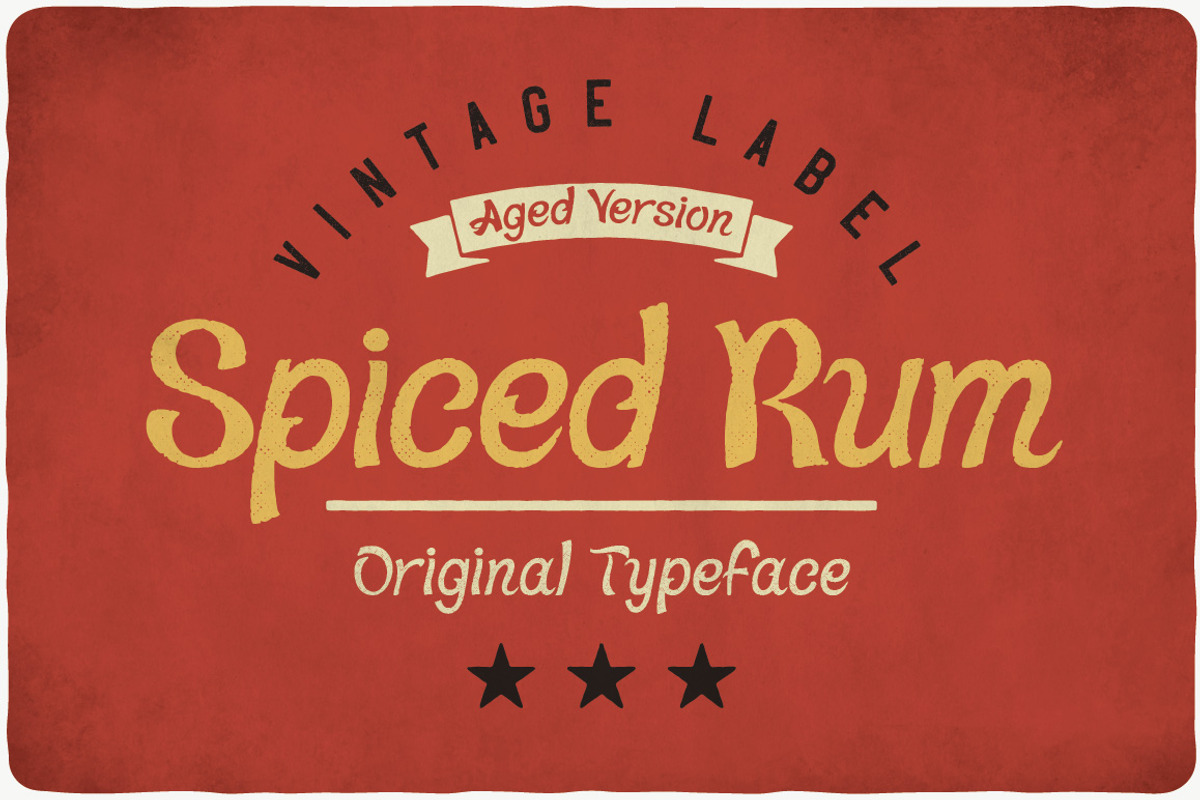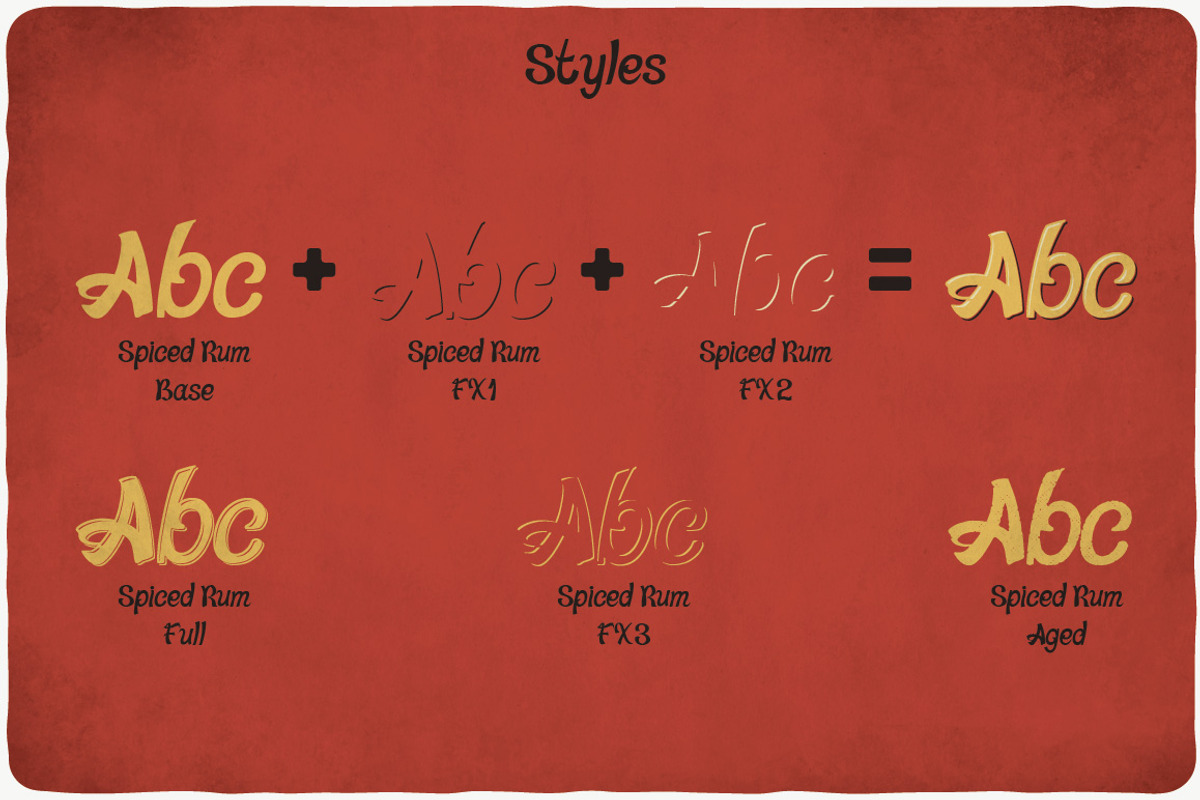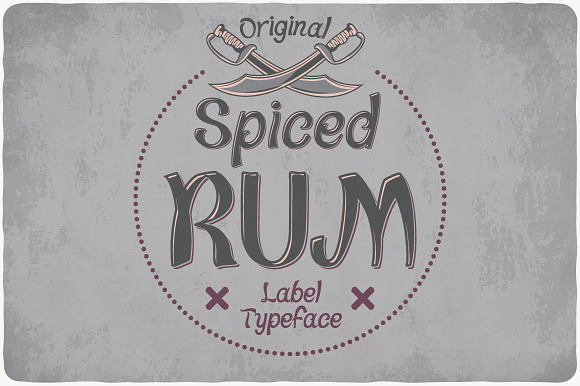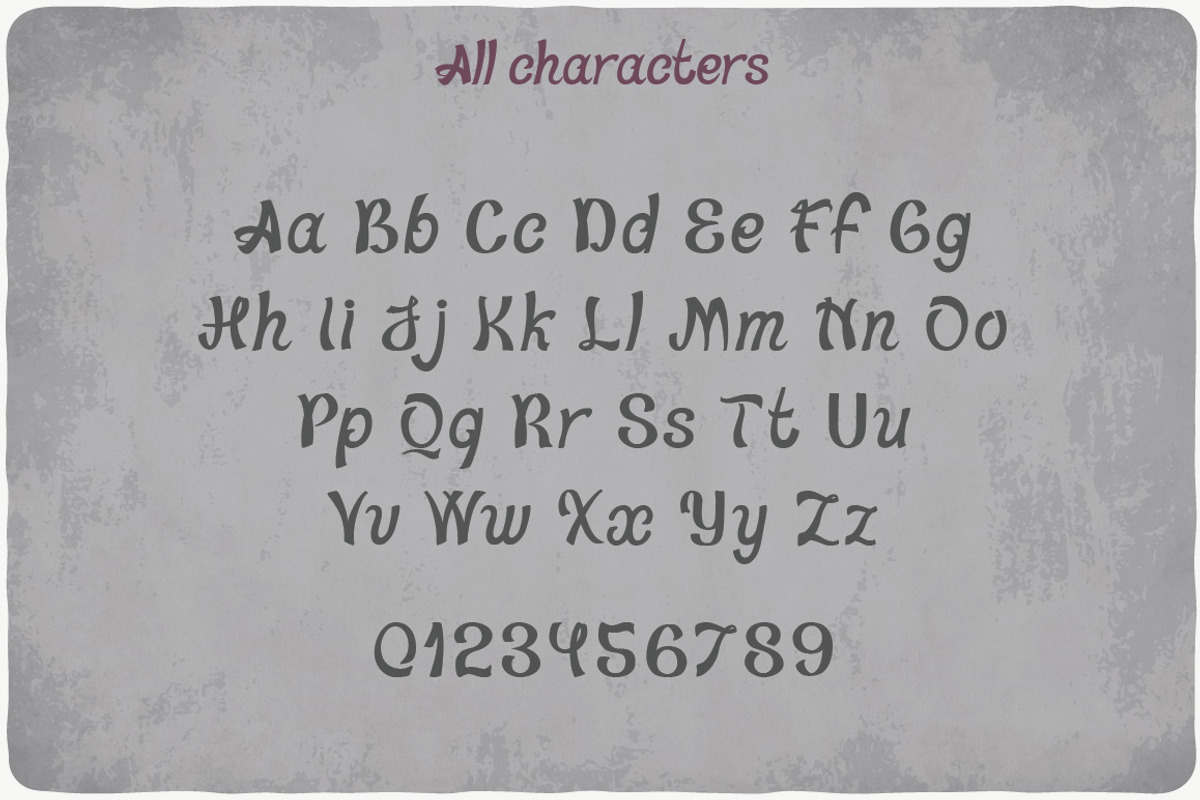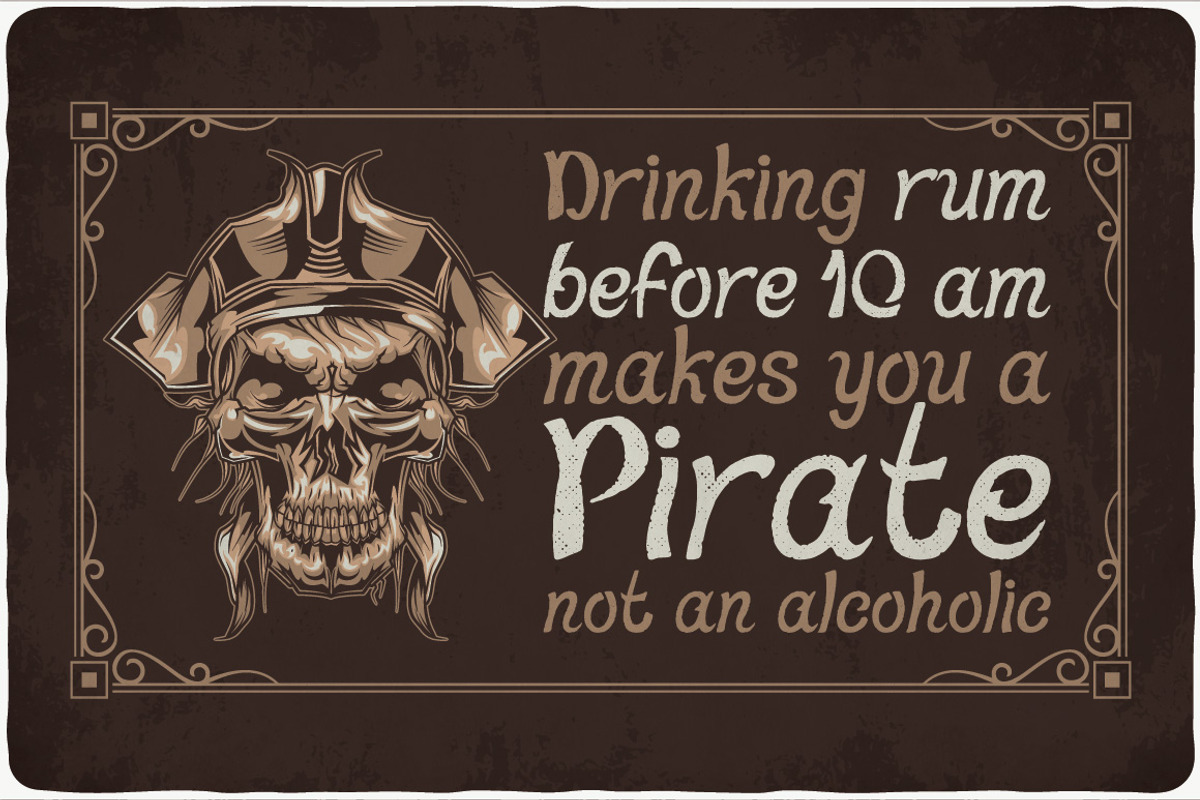
Spiced Rum Typeface
Hello! Presenting a handwritten style label font. It also includes a bonus graphics — motorcycle badge and bar (pub) motivational poster :)
Spiced Rum Typeface by VozzyStock fits naturally into Branding, posters, packaging, typography.